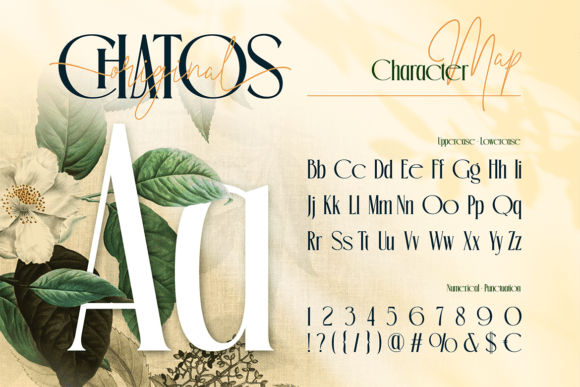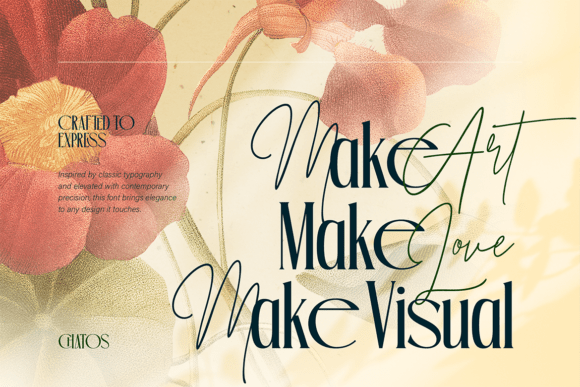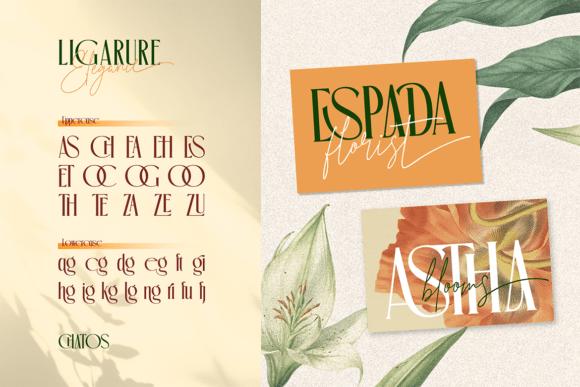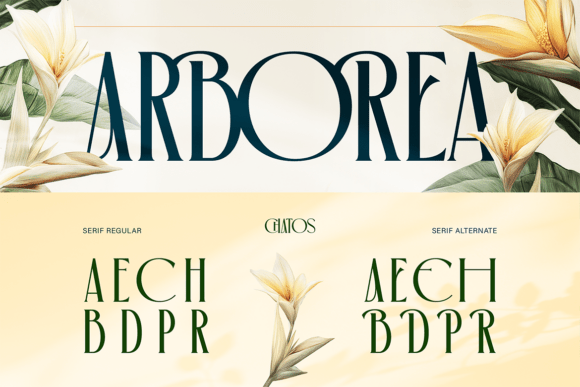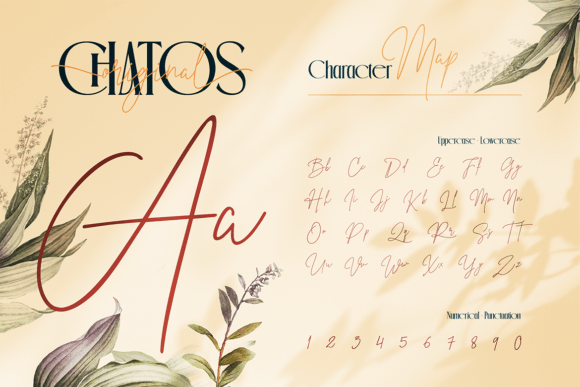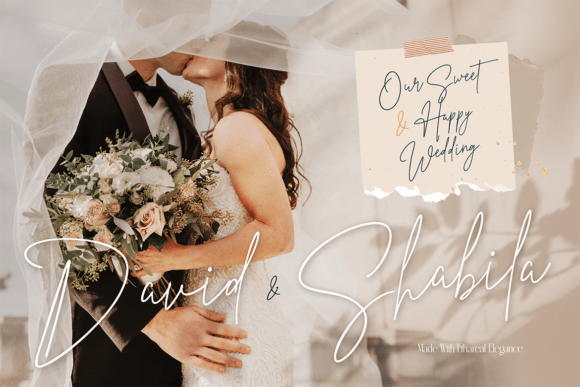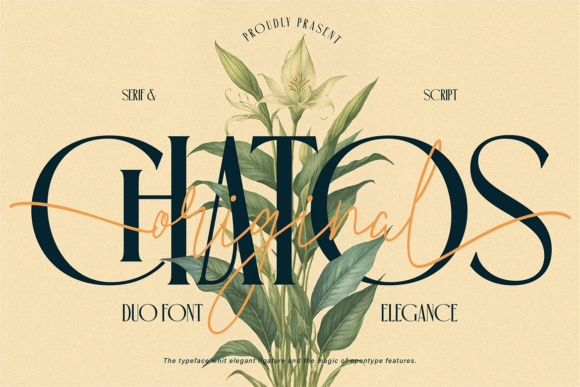
Introducing Chatos Original Font: Elevate Your Designs with Timeless Elegance
In the world of typography, finding the perfect font that embodies both elegance and personality can be a daunting task. However, with Chatos Original Font, your search is over. This refined duo font combines an elegant serif with a flowing handwritten script, designed to work beautifully together, bringing a timeless, romantic, and artistic feel to any design.
The Perfect Pairing: Serif and Script
Chatos Original Font is not just a single font, but a duo that offers versatility and creativity to designers and crafters alike. The serif style features graceful curves and stylish alternates, making it perfect for headlines, logos, and editorial layouts. On the other hand, the script font adds a natural handwritten touch that feels personal and expressive, ideal for signatures, branding accents, and decorative text.
Unleash Your Creativity with Advanced Typography Features
What sets Chatos Original Font apart is its advanced typography features. With ligatures and OpenType features, you can create smooth typography compositions that look premium and well-crafted. This means you can achieve a high level of customization and sophistication in your designs, taking them to the next level.
Inspiration from Classic Elegance with a Modern Floral Aesthetic
Chatos Original Font draws inspiration from classic elegance, infusing it with a modern floral aesthetic. This unique blend results in a font that is both timeless and contemporary, suitable for a wide range of design applications. Whether you’re working on branding and logo design, wedding invitations and stationery, beauty, fashion, and floral designs, editorial layouts, social media graphics, or product packaging and quotes, Chatos Original Font is the perfect choice.
Ideal for Various Design Applications
Given its versatility and aesthetic appeal, Chatos Original Font is ideal for various design applications, including:
• Branding & logo design: Create a lasting impression with a font that exudes elegance and sophistication.
• Wedding invitations & stationery: Add a touch of romance and luxury to your wedding designs.
• Beauty, fashion, and floral designs: Enhance your designs with a font that embodies elegance and refinement.
• Editorial layouts & social media graphics: Stand out with a font that offers a perfect blend of classic and modern appeal.
• Product packaging and quotes: Elevate your product designs and quotes with a sophisticated and artistic font.
Why Choose Chatos Original Font?
Choosing Chatos Original Font for your design projects means you’re opting for a font that:
• Offers a unique combination of serif and script styles
• Provides advanced typography features for customization
• Inspires creativity and elegance in your designs
• Saves you time with its versatility across various design applications
• Helps you create a lasting impression with its timeless and romantic feel
Font Name Chatos Original Font
In conclusion, Chatos Original Font is a game-changer for designers and crafters looking to elevate their designs with a touch of elegance and sophistication. Its unique combination of serif and script styles, along with advanced typography features, makes it a versatile and powerful tool for a wide range of design applications. Whether you’re aiming to create stunning branding, beautiful wedding invitations, or captivating editorial layouts, Chatos Original Font is your go-to solution for achieving timeless, romantic, and artistic designs.